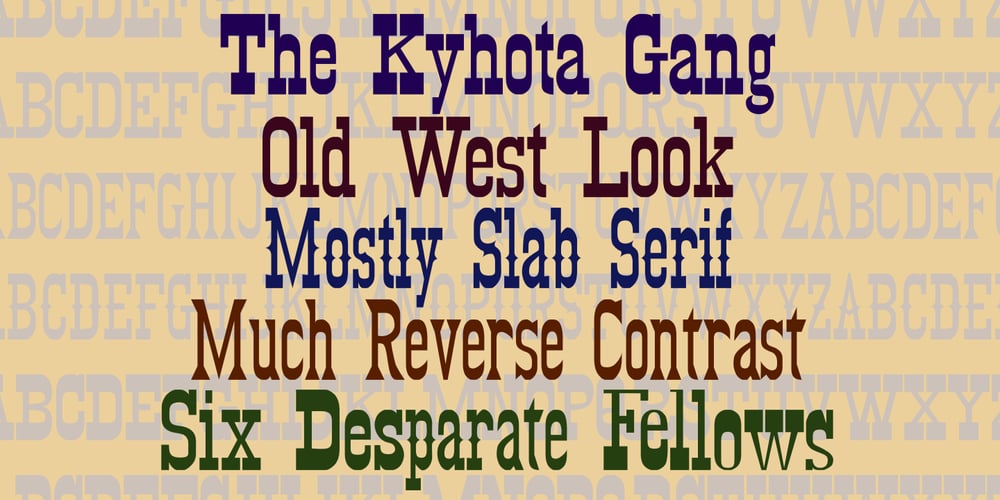
Kyhota
Kyhota font
Kyhota Font Family was designed by Robert Schenk and published by Ingrimayne Type. Kyhota contains 6 styles and family package options. The six typefaces of the Kyhota group all have an “Old West” look to them. KyhotaOne has very thick slab serifs compared to KyhotaTwo. KyhotaBarbed is more condensed than either and has little barbs on the verticals, something that was a feature of a number of nineteenth century typefaces in this style. KyhotaFezdaz is condensed, without barbs, and with the slab serifs replaced with a flare serif. KyhotaBigBottom and KyhotaBigTop play with the weighting of the serifs, with one (either top or bottom) very thin and the other very thick.